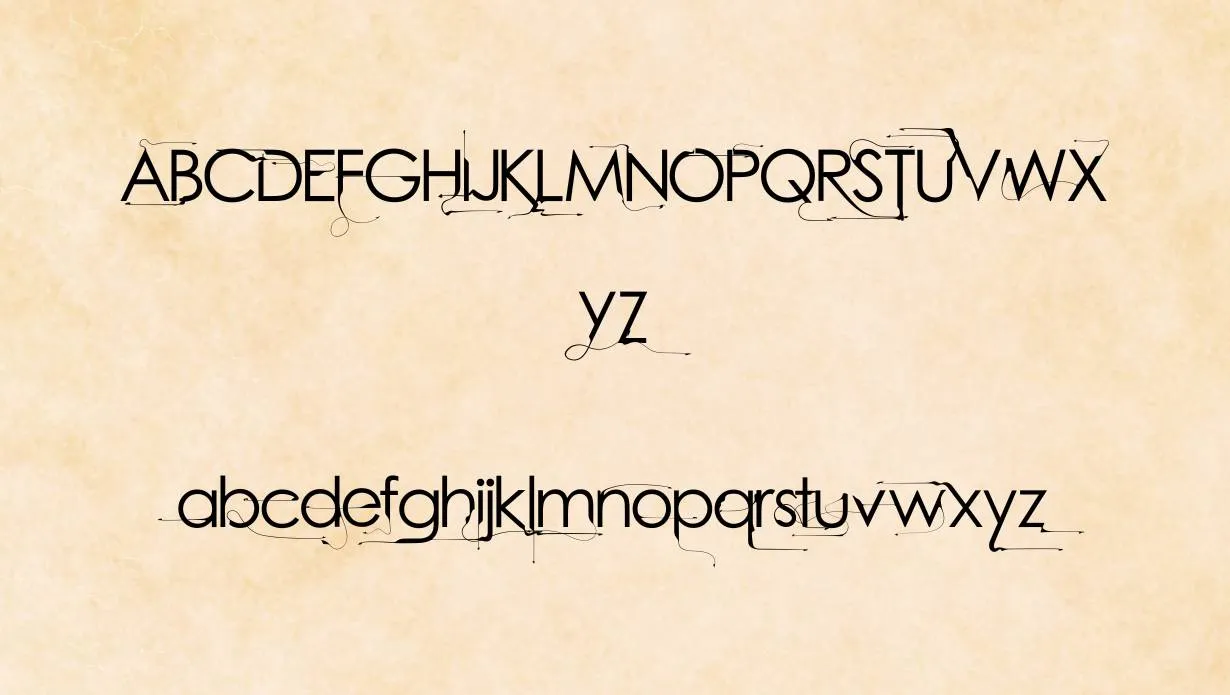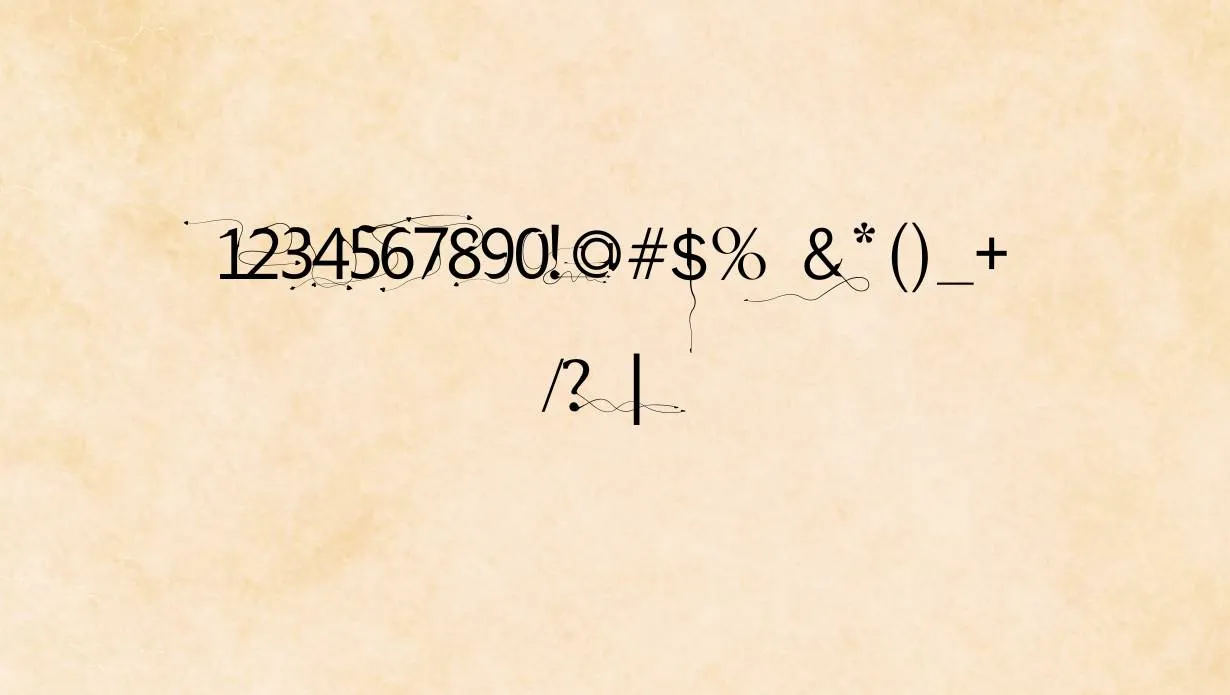
Bright Young Things is a stylish typeface designed by Hugo Beyts, featuring OpenType and TrueType functionalities with a decorative look.
This font originates stylish characters in large and small letters, numbers, etc. To make a more gorgeous and attractive design utilize this font with alba font and the result will be amazing.